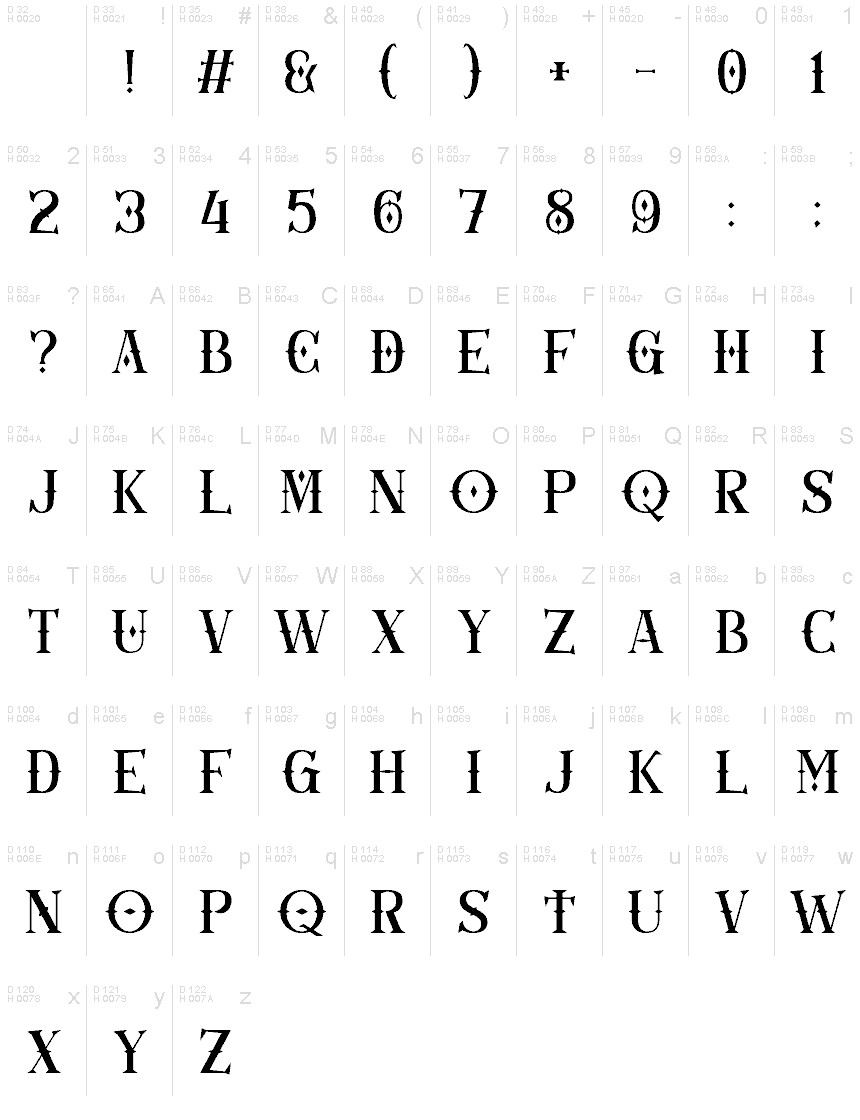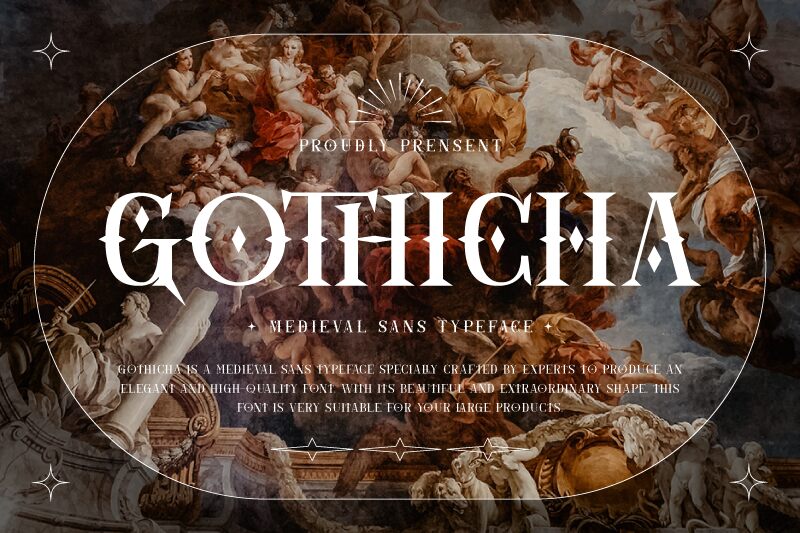
Gothicha Regular
Gothicha font by Creatype Studio is a modern gothic typeface with a dramatic presence. Combining Gothic influences with ornate details, the font mimics the authentic historical feel of the past. Each character is designed to reflect an elegant feel with smoothly written lines and definitive angles visible in their endings. The overall look and style of this free gothic font are suitable for modern-day projects.